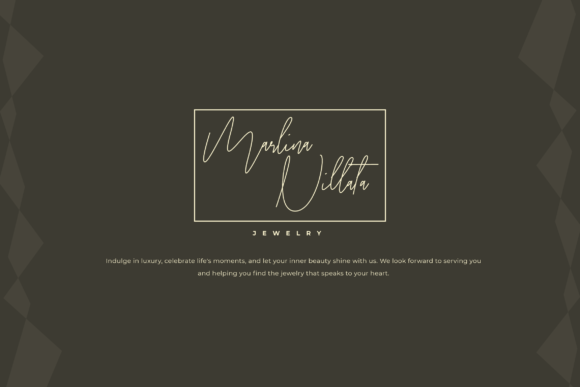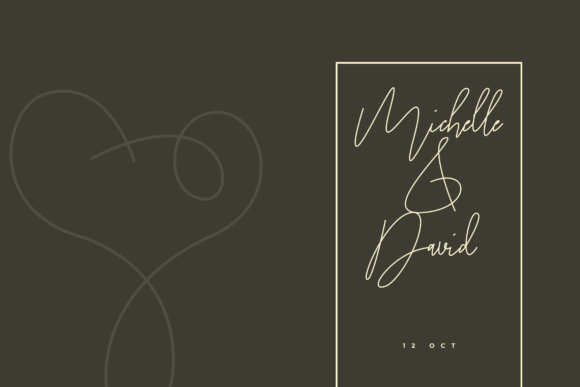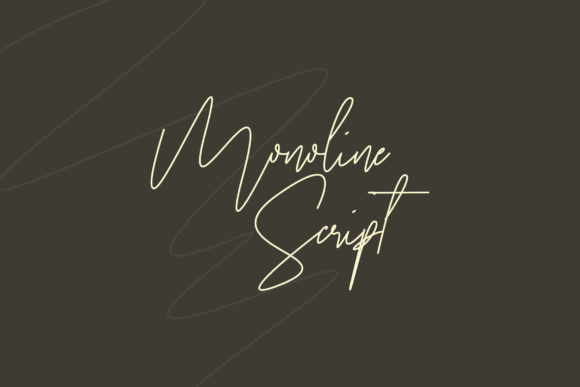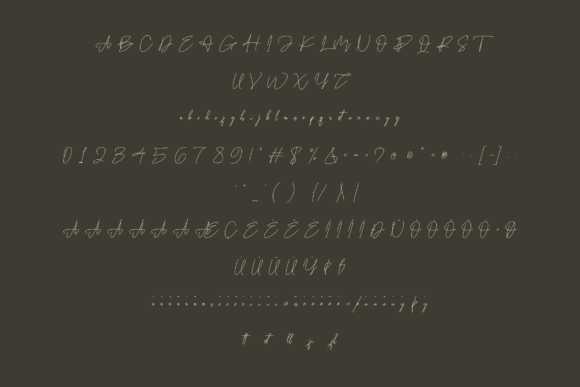
Introducing Antasarya Font: The Perfect Monoline Script for Crafting, Branding, and Social Media
In the world of typography, fonts play a crucial role in conveying messages, expressing creativity, and building brand identities. For designers, crafters, and social media enthusiasts, finding the right font can make all the difference. That’s where Antasarya Font comes in – a beautiful script font with a monoline style that’s perfect for various creative projects. In this article, we’ll dive into the features, benefits, and uses of Antasarya Font, and explore why it’s a must-have for anyone looking to elevate their design game.
What is Antasarya Font?
Antasarya Font is a stunning script font that boasts a sleek monoline style. Its elegant and fluid lines make it perfect for creating beautiful text-based designs that exude sophistication and style. The font’s monoline style gives it a unique and modern look that’s sure to grab attention.
Key Features of Antasarya Font
- Monoline Style: Antasarya Font features a sleek and modern monoline style that’s perfect for creating elegant and sophisticated designs.
- Script Font: As a script font, Antasarya Font is perfect for adding a touch of personality and flair to your designs.
- High Versatility: Antasarya Font is suitable for a wide range of creative projects, including crafting, branding, social media, and more.
- Easy to Read: Despite its elegant and cursive nature, Antasarya Font is easy to read, making it perfect for body text and captions.
Uses of Antasarya Font
Antasarya Font is an incredibly versatile font that can be used for various creative projects, including:
- Crafting: Antasarya Font is perfect for crafters who want to add a personal touch to their projects, such as handmade cards, invitations, and DIY crafts.
- Branding: With its elegant and sophisticated look, Antasarya Font is ideal for branding projects, including logos, business cards, and letterheads.
- Social Media: Antasarya Font can be used to create stunning social media graphics, including Instagram posts, Facebook covers, and Twitter headers.
- Stationery: Antasarya Font is perfect for creating beautiful stationery, including notebooks, journals, and planners.
Benefits of Using Antasarya Font
Using Antasarya Font can bring numerous benefits to your design projects, including:
- Unique and Modern Look: Antasarya Font’s monoline style gives it a unique and modern look that sets it apart from other fonts.
- Elegance and Sophistication: Antasarya Font exudes elegance and sophistication, making it perfect for high-end branding and design projects.
- Improved Readability: Despite its elegant nature, Antasarya Font is easy to read, making it perfect for body text and captions.
- Time-Saving: With Antasarya Font, you can create stunning designs in no time, thanks to its versatility and ease of use.
Tips for Using Antasarya Font
To get the most out of Antasarya Font, here are some tips to keep in mind:
- Pair it with Other Fonts: Antasarya Font looks great when paired with other fonts, such as sans-serif fonts for a modern look or serif fonts for a classic look.
- Experiment with Colors: Antasarya Font can be used with a wide range of colors, from bold and bright to soft and pastel.
- Use it for Headings and Titles: Antasarya Font is perfect for headings and titles, where its elegant and sophisticated look can shine.
In conclusion, Antasarya Font is a stunning script font with a monoline style that’s perfect for crafting, branding, social media, and more. Its elegance, sophistication, and versatility make it a must-have for designers, crafters, and social media enthusiasts. With its ease of use and wide range of applications, Antasarya Font is sure to become a favorite in your font collection.